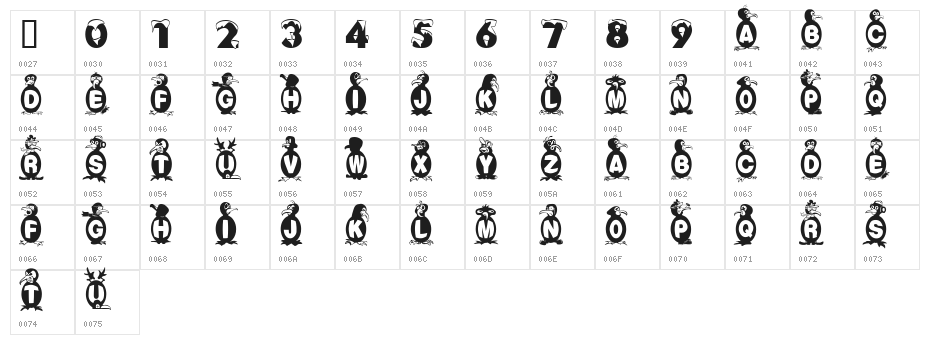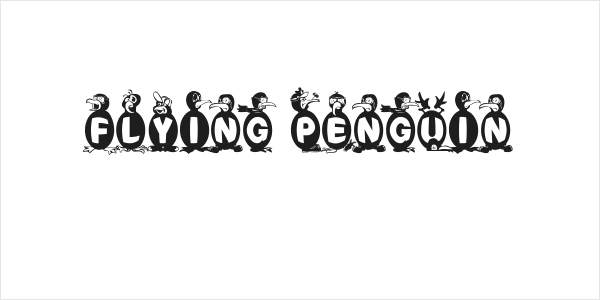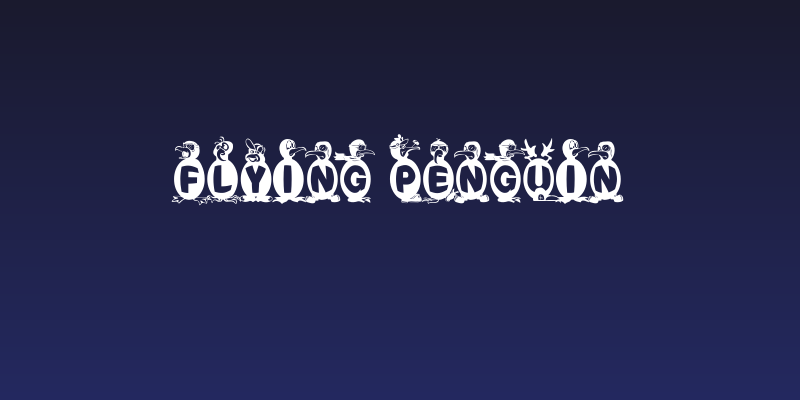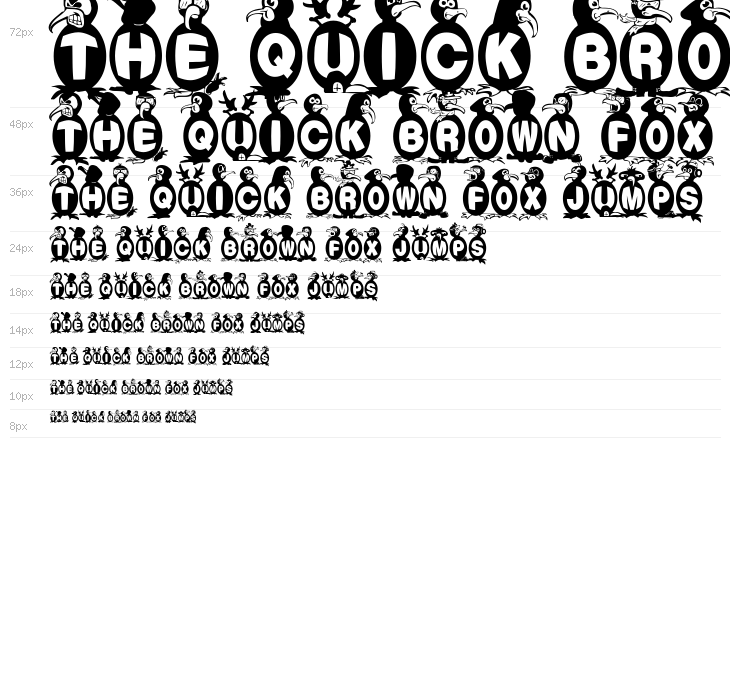
Flying Penguin Font
Flying Penguin Description
This playful and whimsical font features characters embedded within penguin illustrations, creating a unique and entertaining visual experience. Each letter is creatively integrated into the body of a cartoon penguin, adding a sense of fun and creativity. The numbers are designed with a snowy effect, enhancing the playful theme. The special characters are framed within boxes, maintaining the overall quirky style. This font is ideal for projects that require a light-hearted and humorous touch, such as children's books, party invitations, or playful branding materials.
Overall StylePlayful, Whimsical
Use CaseHeadlines, Logos, Decorative text
Proposed ProjectsChildren's books, party invitations, playful branding, educational materials, greeting cards.